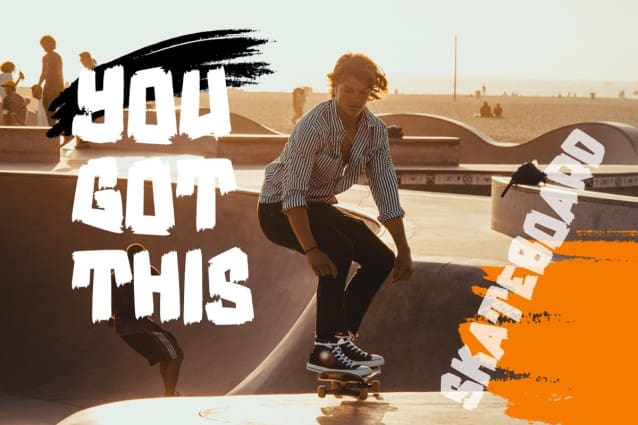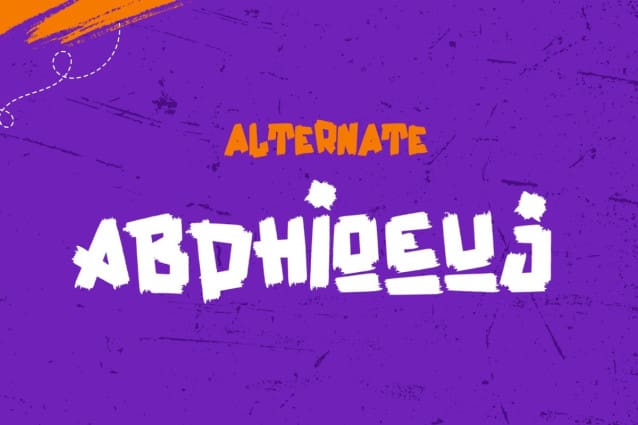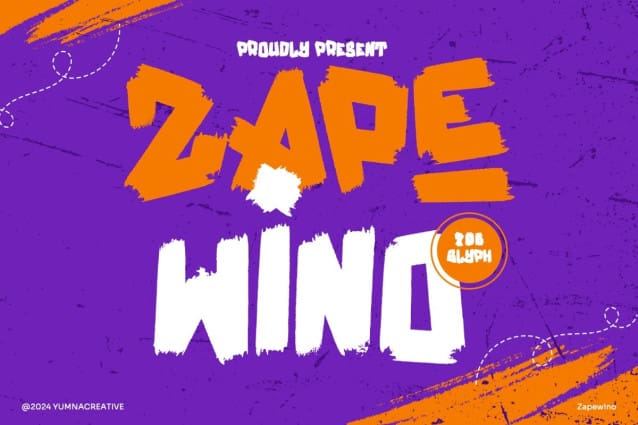
Zapewino Brush Font
Zapewino Brush Font is a creative digital tool designed to mimic the bold, expressive style of graffiti. It features a brush that gives your artwork an urban, street-art feel, perfect for creating graffiti-like designs with ease.